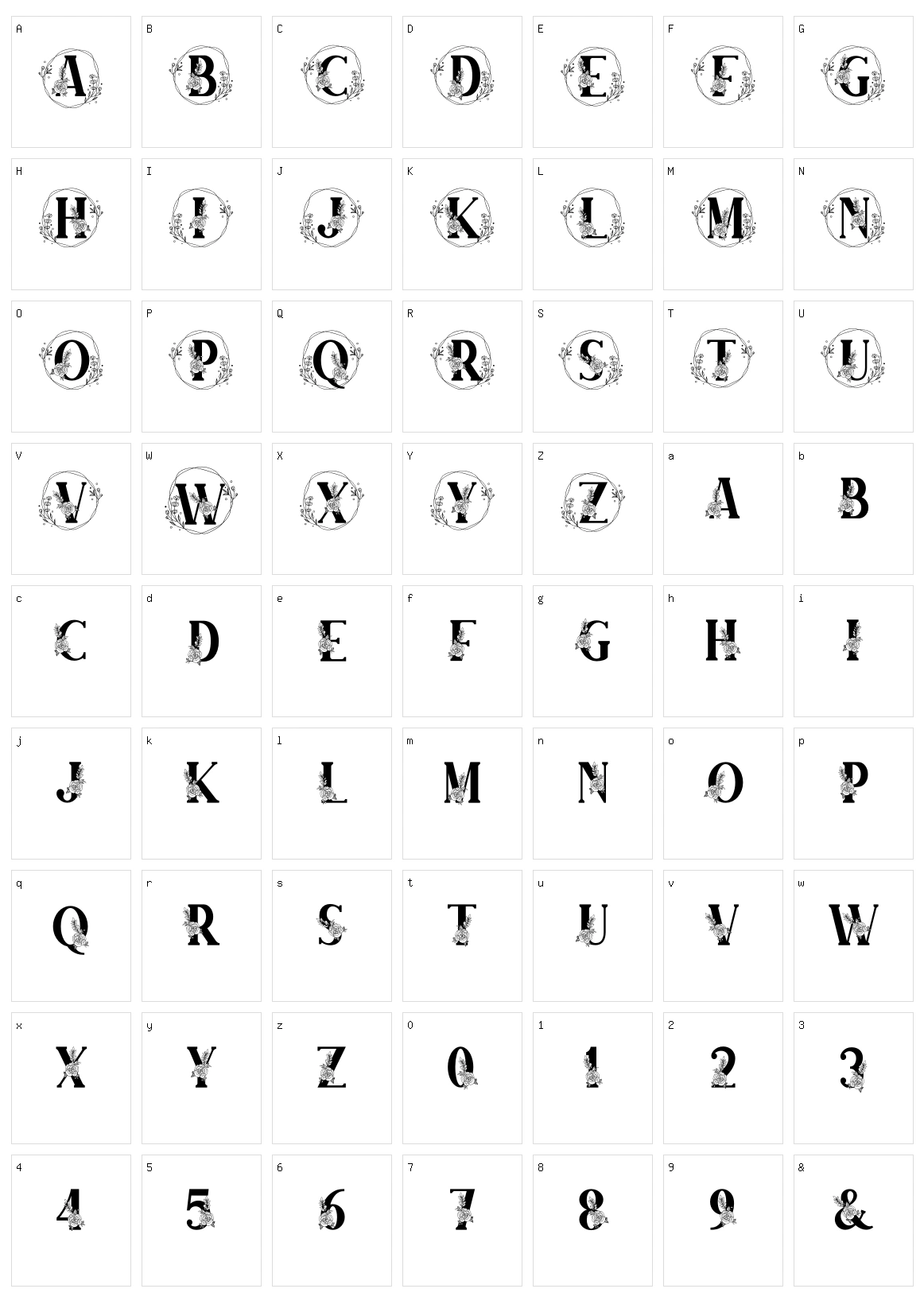
The free font Farmhouse Monogram is carefully designed by Mozatype, showcasing a thoughtful balance of creativity and usability and falls under the Initials font style. When you download the ZIP file, it contains only 763.67 KB of font files, making it lightweight and quick to download. Please review the license details below to understand permitted usage and distribution rights. If license information is not available, we recommend using this font for personal projects only or contacting the author directly for commercial usage permissions.